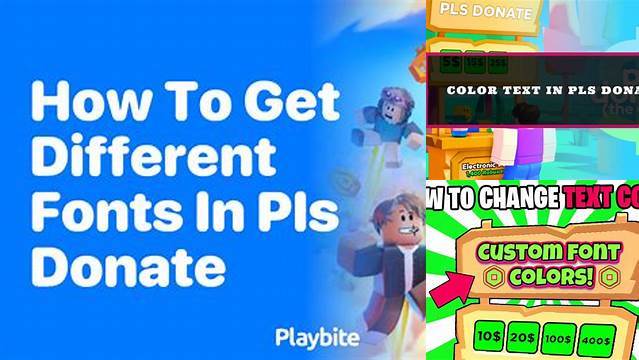
Cool Fonts In PLS DONATE: A Stylish Guide
Hey everyone! So, you're here because you want to spice up your PLS DONATE game with some seriously cool fonts, right? You've come to the right place! This guide is all about how to make those eye-catching fonts that'll make your donation booth stand out from the crowd. We'll dive into everything from the basics to some neat tricks that'll have your text looking fantastic. Get ready to transform your PLS DONATE experience – let's get started!
H2: Unleashing the Power of Font Styles in PLS DONATE
Alright, guys, let's talk about the magic of font styles in PLS DONATE. When you're trying to catch someone's eye and encourage them to donate, the way your text looks matters a whole lot. It's not just about what you say; it's about how you say it! Think about it: you're scrolling through a sea of booths, and suddenly, you see one with a super cool font. Which one are you more likely to stop and check out? Exactly! That's the power of fonts. Cool fonts instantly make your booth more attractive. They can convey your personality, highlight key messages, and generally make your display more engaging. A well-chosen font can signal to potential donors that you put effort into your booth, which in turn suggests that you're dedicated to your goals and deserve their support. The fonts you use will definitely make a significant difference in the experience of potential donors. There are many different styles to choose from, such as those that make the text look elegant or bold. If you make your texts look cool and beautiful, there is a greater chance of a donor donating to your booth, because they might be curious to see your booth. You want to be memorable, and using cool fonts is one of the most effective ways to achieve that goal. Not only will it grab attention, but it can also make your text easier to read. This means your message will be understood more quickly, which is always a bonus. So, are you ready to be part of the donation game and begin making those cool fonts that will make you look cool?
Choosing the right font is crucial, so it's worth spending some time experimenting. Try out different styles and see which ones resonate with you and fit the overall theme of your booth. Do you want something playful? Go for a more rounded, fun font. Looking for something sophisticated? A clean, elegant font might be the better option. Remember, the goal is to create a visually appealing booth that encourages donations. You also need to consider the readability of the font. Some fonts, while they might look cool, can be difficult to read, especially in a crowded environment like PLS DONATE. So, always prioritize readability, and remember that fonts can be a game-changer in PLS DONATE. By using cool fonts, you not only attract attention but also create a more memorable and enjoyable experience for potential donors. Start with some of the basics, and then let your creativity run wild, exploring different styles to find what works best for your booth.
H2: Step-by-Step Guide: How to Get Stylish Fonts in PLS DONATE
Okay, let's break down the process of getting those stylish fonts in PLS DONATE, step by step. It's not as complicated as you might think, and with a little practice, you'll be a pro in no time. First things first, you'll need to know how to access the text customization options within the game. This usually involves opening up the in-game menu, navigating to your booth's customization settings, and looking for the text editing section. From there, you should be able to input text and adjust various settings like font size, color, and, most importantly, the font style. Finding the exact method of doing this may depend on the particular version of PLS DONATE that you're using, but the interface is fairly consistent across different versions. Always be sure that you are aware of the game's rules on font customization to avoid any potential issues. With the basics out of the way, you can begin to explore a variety of font styles that are available to you. The specific options will depend on the game's current offerings, so it's a good idea to check for any updates or new font packs that might be available. Don't hesitate to try out a variety of fonts to see which ones appeal to you most. This is a great way to show off your unique personality. Next, once you have found a font style you love, you should carefully apply it to your text. Check that your text displays as you intended it to look. Make sure that all the text is easy to read and looks great within your booth's design. Also, be sure that you are using the correct formatting to avoid any potential errors. Take your time with this step, because it's important to ensure that everything is perfect. After applying the font, always preview your booth. Take a look at how the new font looks within the game's environment. Does it stand out? Does it enhance your overall booth design? Make any necessary adjustments, and you are ready to go. You are now ready to attract the attention of many potential donors.
H2: Mastering Font Generators: Your Secret Weapon for Cool Fonts
Alright, folks, let's talk about font generators – your secret weapon for creating those super cool fonts in PLS DONATE. A font generator is essentially an online tool that allows you to type in your text and then see it transformed into a variety of different font styles. It's like having a whole font library at your fingertips! These tools are super easy to use, even if you're not a tech wizard. Most of them have a simple interface where you just type your text, choose from a list of font styles, and then copy and paste the generated text into your PLS DONATE booth. The variety is truly impressive. You can find generators that offer everything from classic fonts to fancy ones and even some that create unique symbols and designs. This means you can customize your text to perfectly match your booth's theme and personality. Finding the right font generator for your needs can be one of the most important steps. There are many free online font generators available, and they all offer different styles and features. Read reviews and compare the different options to find one that best suits your needs and personal style. Once you have chosen a generator, take the time to experiment and find the styles that resonate with you. Try out different fonts, sizes, and colors to create text that looks great within your booth design. Once you're happy with your chosen font, copying and pasting the generated text into PLS DONATE is usually straightforward. After pasting, always make sure the text displays correctly within the game and adjust it as needed. Play around with the text, and see how it looks in different locations within your booth. A font generator is a powerful tool that can help you transform your PLS DONATE booth into something truly special. By using a font generator, you can quickly and easily create text that's both visually appealing and easy to read. The key is to experiment and find the fonts that work best for you and your booth.
H2: Top Font Styles That Rock in PLS DONATE
Let's get down to business and explore some top font styles that are guaranteed to rock in PLS DONATE. These fonts have been tested and proven to capture attention and make your booth stand out from the competition. First, we have bold and impactful fonts. These fonts are perfect for headlines and key messages because they grab attention quickly. Fonts like Arial Black or Impact are great examples of fonts that make your text easy to see from a distance. For a more elegant and sophisticated look, consider using a classic serif font. Fonts like Times New Roman or Georgia can give your booth a touch of class. These fonts are excellent for longer texts and can help make your donation booth look more trustworthy. If you want something that’s fun and quirky, rounded fonts are your best bet. These fonts have a friendly and approachable vibe and are ideal for creating a welcoming atmosphere. Fonts like Comic Sans or Bubblegum Sans can be perfect for making your booth more inviting. Then, there are decorative fonts that add a unique touch. These fonts can be a little harder to read, so use them sparingly and in moderation. Fonts like Script or Handwriting can make your booth more memorable. No matter what style you choose, make sure that the font is easy to read. It’s also important to consider the theme and the overall design of your booth. Choose a font that complements your theme and enhances the overall look of your booth. With the right font styles, you can make a lasting impression on potential donors. Always ensure your chosen fonts are legible and visually appealing to make the most of your booth.
H2: The Art of Combining Fonts: Creating Unique Text Designs
Guys, let's talk about the art of combining fonts to create unique text designs! Combining fonts is like mixing and matching outfits – when done well, it can create a look that's both stylish and attention-grabbing. The goal is to use different font styles in a way that complements each other, making your text more visually appealing. One of the key things to keep in mind is contrast. Pairing a bold font with a more delicate one can create a dynamic look. For example, use a bold, sans-serif font for headlines and a thin, serif font for body text. This creates a visual hierarchy and makes your text easier to read. Use complementary fonts. Choose fonts that have similar styles, and use different weights and sizes. Another important thing to keep in mind is to keep it simple. Avoid using too many different font styles, which can make your text look cluttered and confusing. Aim for a maximum of two or three different fonts to maintain a clean and cohesive design. Try to match your font choice with your booth's theme. If you have a playful booth, go for a fun, rounded font. If you have a more sophisticated booth, opt for a classic, elegant font. Make sure that your font combination is also easy to read. Legibility is always the most important thing! If your text is too difficult to read, you might risk losing your potential donors. When you're experimenting with font combinations, start with the basics. Try pairing a bold headline font with a more readable body font. As you get more comfortable, you can start experimenting with more complex combinations. The key is to practice and have fun! With a little bit of creativity, you can design text that looks amazing. Remember, combining fonts is all about creating visual interest and making your text stand out from the crowd.
H2: Font Size Matters: Optimizing Readability in PLS DONATE
Alright, let's dive into something super important: font size. In PLS DONATE, font size can make or break the readability of your text, so you've got to get it right! The whole point of using cool fonts is to make your text stand out, but if people can't actually read it, then what's the point? Choose a font size that is easy to read from a distance. Your booth is just one of many, so make sure your text catches the eye. Consider the size and layout of your booth. If you have a small booth, you won't want to choose fonts that are too big, and the opposite is also true. You need to ensure that everything is balanced. Also, make sure your text isn't too big. This might make your text look cluttered and less appealing. Don't be afraid to experiment and try different sizes to find what works best for your booth. Think about your target audience. Are you trying to attract younger players or adults? Choosing the right font size can help you connect with your target audience. In addition to these factors, you need to take the game environment into consideration. The game environment can affect how your text looks. Make sure that your font size is visible and easy to read, even in a crowded or busy environment. The key is to create text that looks good and can be easily read. When designing your booth, focus on readability and user experience. With the right font size, you can make a lasting impression on potential donors.
H2: Color Coordination: Making Your Fonts Pop
Hey, let's talk color! Color coordination is a game-changer when it comes to making your fonts really pop in PLS DONATE. It’s not just about choosing a cool font; it’s about the entire visual experience. Your font's color needs to work with your booth's background, overall theme, and, of course, your logo. First things first, you need to know the color wheel. Understanding how colors interact with each other is critical to your success. A color wheel helps you choose colors that complement each other, and that look good together. Think about using contrasting colors. Contrasting colors are those that are on opposite sides of the color wheel. For example, if you use a blue background, then consider using yellow or orange for your font. This can make your text stand out and easier to read. Consider the colors of your booth. The color of your booth should complement your text. If your booth is mainly using darker colors, then opt for brighter fonts, and vice versa. This will allow your text to pop out and be easier to read. Use colors that match your booth's theme. You should also try to make sure the colors match the theme of your booth. If your booth is about a specific subject, then consider using related colors. Make sure your color scheme is consistent. Use the same colors across all the text and design elements of your booth to create a cohesive look. Avoid using too many colors. Sticking to a limited color palette can make your design look cleaner and more professional. The right color combination will make your fonts stand out and capture the attention of potential donors. With the right color combinations, you can attract attention, increase the readability of your texts, and enhance your booth’s overall appeal.
H2: The Power of Symbols and Emojis in Font Designs
Let's talk about adding some extra flair to your text with symbols and emojis. These little visual elements can add personality and make your fonts more appealing! Symbols and emojis are super fun. They can add a layer of expression and help convey your message. You can use symbols and emojis in your font designs to add personality, highlight important information, and make your text more engaging. Think about using emojis in your messages. Emojis can convey emotions, which adds a layer of personality to your booth and makes it more fun to interact with. Symbols are also useful for highlighting the most important things. Use symbols to make key phrases stand out. This will make the information easier to understand and draw attention to important details. The choice of what symbols to include depends on your booth theme, but it is a good idea to add some symbols and emojis to your texts. The best way to integrate symbols and emojis into your text is to be creative and experiment. Try different combinations of emojis and symbols to find what works best for your booth. You should also test how the symbols and emojis look with your chosen fonts. Remember to keep the symbols and emojis relevant to your message. If your booth is about collecting donations, you could use the dollar symbol. If it's about a specific cause, you could include symbols that represent that cause. The right symbols and emojis will make your booth more interesting and enjoyable. You can make your texts more memorable and engaging by using these elements effectively. So, don't be afraid to get creative and have fun with symbols and emojis!
H2: Troubleshooting Font Issues: When Things Go Wrong
Alright, let's face it, things don't always go perfectly, and you might run into some font issues along the way. But hey, don't sweat it! We'll cover the common problems and how to fix them. One of the most common problems is the text not displaying correctly. This can happen for various reasons, such as incorrect formatting or unsupported characters. If the font does not display, then carefully check your text to make sure that the formatting and characters are correct. Another common problem is the font looking different than you expected. This might be because of the device, the settings you are using, or the game version. Try a different font and see if that fixes the issue. Then, it's also possible that your font choice is not supported by PLS DONATE, or that the game has limitations on the characters or symbols you can use. If you are experiencing issues, make sure that the font you're using is supported by the game. Check if you have the most up-to-date version of the game installed. The latest version of the game has many improvements, including fixes to various font issues. When you are customizing the text, make sure you have the correct game settings. When setting the text, make sure you adhere to all the guidelines, rules, and limitations. By troubleshooting common issues, you can create amazing fonts for your PLS DONATE booth.
H2: Tips and Tricks for Standout Font Designs
Let's dive into some tips and tricks that will take your font designs to the next level in PLS DONATE. First off, let's talk about alignment. Consider how you align your text in your booth. You can choose to align your text to the left, right, or center, depending on your design and your personal taste. When aligning your text, try to make sure that it's easily readable and looks great within your booth. Experiment with different alignment options to see what works best. Then, you can consider the use of whitespace. Whitespace, or negative space, is the empty area around your text. Make sure your texts have plenty of whitespace to help them stand out. Make sure your texts aren't too close to each other, and give your text breathing room. This will make your text look cleaner and easier to read. Remember to make sure your text is easy to read. You'll want to make sure that it is easy to read even if you're in a busy area. Use a readable font and a font size that's appropriate for your booth and its surroundings. Test your design on different devices. Some fonts may look different depending on what device they're being viewed on. You may also want to consider the use of shadows and outlines. Shadows and outlines can add depth and make your text stand out even more. With these tips, you can create truly unique and amazing font designs.
H2: Staying Updated: Font Trends and PLS DONATE Updates
Alright, let's talk about staying up-to-date! The world of fonts and PLS DONATE is constantly evolving, so keeping your designs fresh is key. This way, you'll always have the latest fonts. New font styles are always emerging, so it's a good idea to stay on top of these trends. Follow online design communities and look for new fonts that are trending. You'll want to check for any updates to PLS DONATE that might affect fonts. Updates frequently bring new features, including new fonts and ways to customize the text. Keep your game updated to ensure that you have access to the latest features and improvements. Try to keep an eye on what other players are doing in PLS DONATE. See which font styles are popular and what design trends are emerging. It's a great idea to gather inspiration. Always stay informed about the new features and trends. The best way to do this is to follow the game's official social media accounts. Here, you'll be able to find new updates. By remaining updated, you can always design cool and trending fonts for your PLS DONATE booth.
H2: Resources and Tools for Font Customization
Let's go over some resources and tools that will help you with font customization in PLS DONATE. Here are some great tools. First, you can try online font generators. We talked about these earlier, but they're worth mentioning again. They are an easy and quick way to generate amazing fonts. Then, you can find font pairing guides. These guides can help you choose the best font combinations. They usually include examples of fonts that look great together. You can also use websites and forums dedicated to font design. These sites provide inspiration, tutorials, and resources for all your font design needs. Then, you might find some font download sites. These sites allow you to download cool fonts. You can install these fonts on your device and use them in your font designs. It is also a good idea to make use of design software. Design software, like Adobe Photoshop or Canva, offers more advanced customization options for fonts. All of these resources and tools will help you design amazing fonts for PLS DONATE.
H2: The Ethical Side: Font Usage and Copyrights
Hey guys, let's take a moment to chat about the ethical side of font usage and copyrights. It's important to make sure you're using fonts legally and respectfully. Fonts, like any creative work, can be subject to copyright laws. You'll want to ensure that you're using fonts legally. This is to avoid legal trouble. Always check the font's license to see how it can be used. Some fonts are free for personal use but require a license for commercial purposes. Commercial purposes include making money from PLS DONATE. Always give credit to the font designers. Proper attribution will make sure that you are respecting the designer's work. Avoid using fonts that infringe on other people's rights. You don't want to accidentally break the law and cause a problem. Respecting copyrights is crucial for all fonts you choose. Be sure that you are following all the rules of using the font. Always take the time to read the font's license, and ensure that your use complies. By following the basic ethical rules for font usage, you can have fun designing fonts for your PLS DONATE booth, while at the same time respecting the rights of font designers.
H2: Showcasing Your Font Designs: Making Your Booth Shine
Alright, let's talk about showcasing your awesome font designs and making your PLS DONATE booth shine! You've put in the effort to create these amazing fonts, so let's make sure they're the star of the show. First, consider the layout of your booth. How you arrange your text within your booth design can greatly affect how your fonts look. Ensure that the text is easily readable and visually appealing. Next, consider your booth's theme. Choose font styles that complement your theme and enhance the overall aesthetic. Consistency is critical when designing your booth. Use the same fonts across your booth design, including the donation prompts, to create a cohesive look. Make sure to put your font designs in a prominent place in your booth. They should grab attention and make people want to donate. Use contrasting colors for both your font and your background. High contrast will make your texts pop and catch the attention of potential donors. You should make sure that your booth looks great from a distance. This will make your booth stand out and be easily seen in PLS DONATE. Try to get creative with your booth's design. The more creative your booth is, the more people will want to come and see it. With these tips, your font designs will shine and boost donations.
H2: User Experiences: What Players Say About Fonts in PLS DONATE
Let's dive into what other players say about fonts in PLS DONATE. Learning from the experiences of others can help you create the best fonts possible. Players often say that the right fonts can significantly enhance the overall experience of PLS DONATE. Cool fonts can make a booth more visually appealing. If the fonts are eye-catching, then players will be more likely to stop and see your booth. Remember, readability is the key. Players frequently highlight the importance of readability. If the text is too difficult to read, then players will get frustrated. Try to ensure that your fonts are easy to read in your booth. The font style is also important. Players say that they are more drawn to booths with unique and creative fonts. Players want to be able to easily see what the booth is selling. The best way to make your booth stand out is with a cool font. Players frequently discuss the importance of readability. Make sure you take the time to choose a font that's both stylish and easy to read. It can be very tempting to use the coolest font that you can find. But if it's unreadable, your message will be lost on the players. When choosing your font, think about what you want to say. With the right font, you can make your booth more attractive, and make a lasting impression on players.
H2: Font Design and Accessibility: Making it Inclusive
Hey, let's talk about font design and accessibility! Making your font designs inclusive is important. Here's why! Accessibility means making your text easy to read for everyone. Making sure that your fonts are accessible is a fantastic way to show that you care. It also helps you reach a wider audience. Make sure that your font is easy to read for people with visual impairments. Avoid using overly complex or decorative fonts, and stick to simple fonts. Make sure that your font sizes are appropriate for the text. Then, use high contrast between your text and its background. High contrast makes it easier for people with visual impairments to see the text. You can also use different colors to increase readability. Use color combinations that are accessible, and use color blindness. This will ensure that the colors you use are easy to see. Always keep the legibility of your text in mind. With accessibility in mind, you can make your font designs inclusive. You can also ensure that your booth is user-friendly for all players. By making accessibility a priority, you'll make your booth a better place for everyone.
H2: Beyond Fonts: Other Customization Options to Consider
Let's explore some customization options beyond just fonts. While fonts are a huge part of making your booth stand out, there's so much more you can do. First, you can make the background of your booth more appealing. You can choose a background that complements your theme, your font, and the overall vibe of your booth. Your booth can look even more interesting with some decorations. Decorations will add personality and make your booth more attractive. You can add an avatar to your booth. You can make it stand out by adding an avatar that represents the theme of the booth. Always consider the theme of your booth. You want to make sure everything matches. This will make your booth look organized. It is also a good idea to add animations. Animations can make your booth more interactive and engaging. In addition, you should consider the layout of your booth. Make sure everything is organized and easy to navigate. Beyond the fonts, you can make your booth stand out and increase donations by considering these customization options.
H2: Legal Considerations: Avoiding Copyright Issues and Font Licensing
Let's dive into the legal side of font usage in PLS DONATE. It's super important to stay on the right side of the law when it comes to fonts. First, it's important to know that most fonts are protected by copyright. This means that you can't just use any font you find online without considering its license. You should always make sure that you have the right to use a font before including it in your design. To avoid any copyright issues, make sure you understand the font's license. Some fonts are free for personal use, while other fonts require a commercial license. If you are planning on using fonts for commercial purposes, make sure that the font's license permits it. You will also want to find out if you have permission to use any font. If you need to use a font for commercial purposes, then it is a good idea to check to see if a license is available. Then, give the proper credit to the font designer. If you are using a font, then give credit to the designer in your design. If the font's license requires it, provide the attribution. By understanding and respecting the legal aspects of font usage, you can create amazing fonts. You can design a fantastic booth for PLS DONATE, while respecting the rights of font designers.
H2: Measuring Success: How to Know Your Fonts are Working
Alright, you've put in the work, designed amazing fonts, and now it's time to see if they're working! Here's how you can measure the success of your font choices in PLS DONATE. First, keep an eye on the donations you receive. Are you getting more donations after changing your fonts? If yes, then it means your fonts are working well. If you are getting more donations, then your fonts are helping you attract more donors. Next, track the traffic to your booth. You can look at your booth's analytics to see how many people are visiting. If your booth traffic has increased after changing your font, then it's a good sign that your fonts are working well. You can get player feedback. Always ask for feedback from other players about your font designs. You can ask them if they like the fonts you chose. If the players like your font, then they are more likely to visit your booth. You should also try A/B testing. You can use different fonts in your booth and compare how well they perform. You can see if your fonts are working well. Then, you can also consider how well your fonts look with other design elements. Do your fonts complement other design elements in your booth? If the fonts are doing their job, then your booth will look better. With these tips, you can tell whether your fonts are working! If you are getting more donations, then it means that your fonts are helping you attract donors.
H2: The Future of Fonts in PLS DONATE: Trends to Watch
Let's take a peek at what the future might hold for fonts in PLS DONATE. Keeping up with the latest trends will ensure that your booth remains fresh and appealing. First, we might see more dynamic fonts. We may see more fonts that are animated, interactive, and customizable. These dynamic fonts could include special effects or unique characters. In the future, there may be more personalized fonts. These personalized fonts may reflect a specific player's style and personality. These fonts can add a unique touch. Then, you may see more advanced font customization options. Players could have more control over things like colors, sizes, and other font features. The developers may introduce new font features. You can expect to see new fonts, styles, and other font-related features. You can expect to see font design trends. Make sure to stay up to date with the latest trends. All of these trends will make it easier for you to design fantastic fonts. The future of fonts in PLS DONATE is very exciting. Staying informed will make sure that you can always create the coolest fonts!
H2: Boosting Donations: How Fonts Influence Player Behavior
Alright, let's talk about the impact of fonts on player behavior and how they influence those all-important donations! Fonts have a subtle but significant effect on the way players perceive your booth. The first thing to consider is readability. If a font is difficult to read, then players may leave your booth. If your text is easy to read, then your booth will look more professional. Next, think about the visual appeal of your text. Cool fonts are more attractive to players. Cool fonts grab attention and give a positive first impression. The font's message should also be aligned with the theme of your booth. Choosing a font that fits your booth's theme will increase the likelihood of donations. You should also use a font that creates a positive impression. Positive fonts create positive emotions. Also, use a font that's easy to understand. By using the right fonts, you can encourage donations.
H2: Font Design Beyond the Booth: Applying Your Skills
So, you've become a font design pro in PLS DONATE! Let's explore how you can apply those skills beyond your booth! You can use your skills to create logos. With your font design skills, you can create custom logos for yourself or for others. You can also make some custom graphics. The font design skills are useful to create unique graphics. You can also use your skills to design other items. You can create banners, social media posts, and other marketing materials. If you want to create these materials, then you should master font design. You can design fonts for websites, social media, and other online platforms. Your skills are valuable in all areas. So, don't be afraid to share your skills and showcase your work! The possibilities are endless. The more you design, the better you'll become. You can learn new skills in the process.
H2: Font Design in the Metaverse: Future Possibilities
Hey, let's explore the future of font design in the metaverse! The metaverse is expanding at a rapid pace. You will have many chances to design fonts. First, there will be more immersive experiences. In the metaverse, you'll be able to design fonts for the virtual worlds. You can design for games, social platforms, and other immersive experiences. You can also create custom fonts for avatars. Your fonts will add personality to your avatar and reflect your individual style. You can also experiment with 3D fonts. The 3D fonts add depth and dimension to the texts. 3D fonts are a new way of designing texts. Keep an eye on any font-related trends in the metaverse. You should be ready to learn and adjust to the latest trends. These new developments make the metaverse an exciting place for font design.